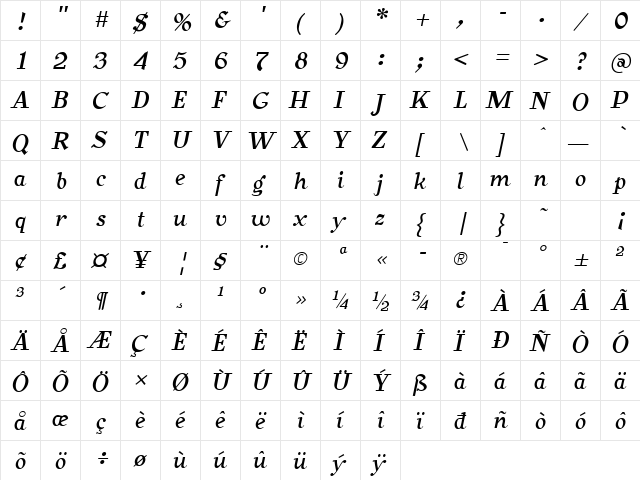
BearButteT BoldItalic Font Preview
Design Context for BearButteT Typeface
BearButteT offers clean, dependable letterforms without strong stylistic allegiance, making it a practical choice for designers who need flexibility. The slanted form adds forward momentum and visual energy. The heavy weight commands attention and anchors typographic hierarchies.
Pro Tip: Try BearButteT for annotation and caption copy alongside an upright companion — the contrast in angle creates a dynamic but ordered typographic system.